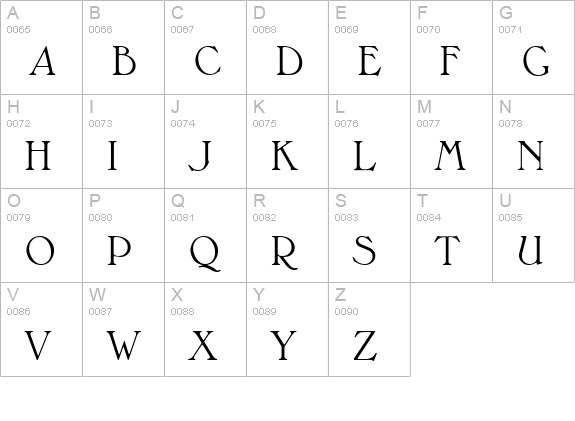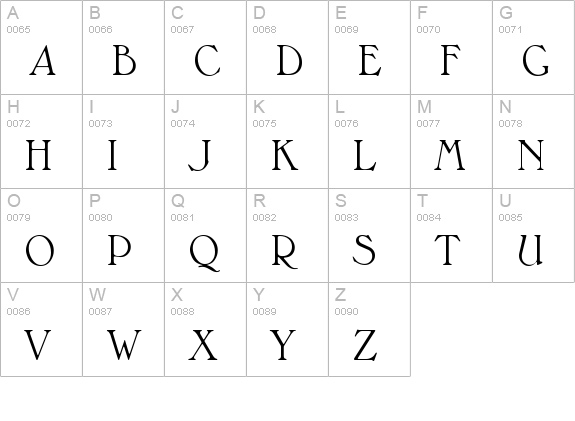
MelbourneSerial-Light-Regular is a refined, elegant variant in the MelbourneSerial typeface family \xE2\x80\x94 well suited to elegant body text, refined sub-headings, and luxury branding.
MelbourneSerial-Light-Regular is a sleek and modern font that exudes sophistication and elegance. With its clean lines and gentle curves, this font is perfect for a wide range of design projects, from branding to editorial design. Its light weight adds a touch of subtlety and refinement to any text. The best part? MelbourneSerial-Light-Regular is available for free download at FontsMarket.com. Whether you're a professional designer or a hobbyist looking to elevate your projects, this font is a must-have in your collection. Don't miss out on the opportunity to add this versatile and stylish font to your arsenal today!